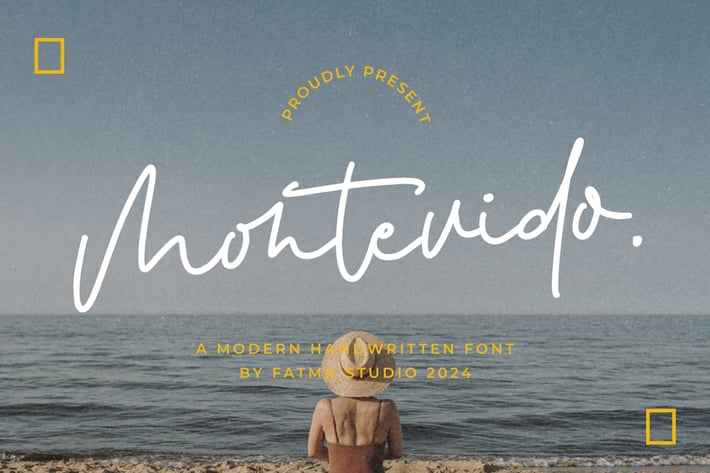
Montevido - Signature Font
Montevido Signature is a stylish, modern script font that exudes elegance and sophistication. Designed to mimic the fluidity of handwritten signatures, it features smooth, flowing lines with a touch of artistic flair. The font often includes graceful loops and swirls, making it perfect for adding a personal and refined touch to invitations, branding, and other creative projects. With its emphasis on readability and charm, Montevido Signature blends classic script aesthetics with contemporary design trends, creating a versatile and visually appealing typeface.